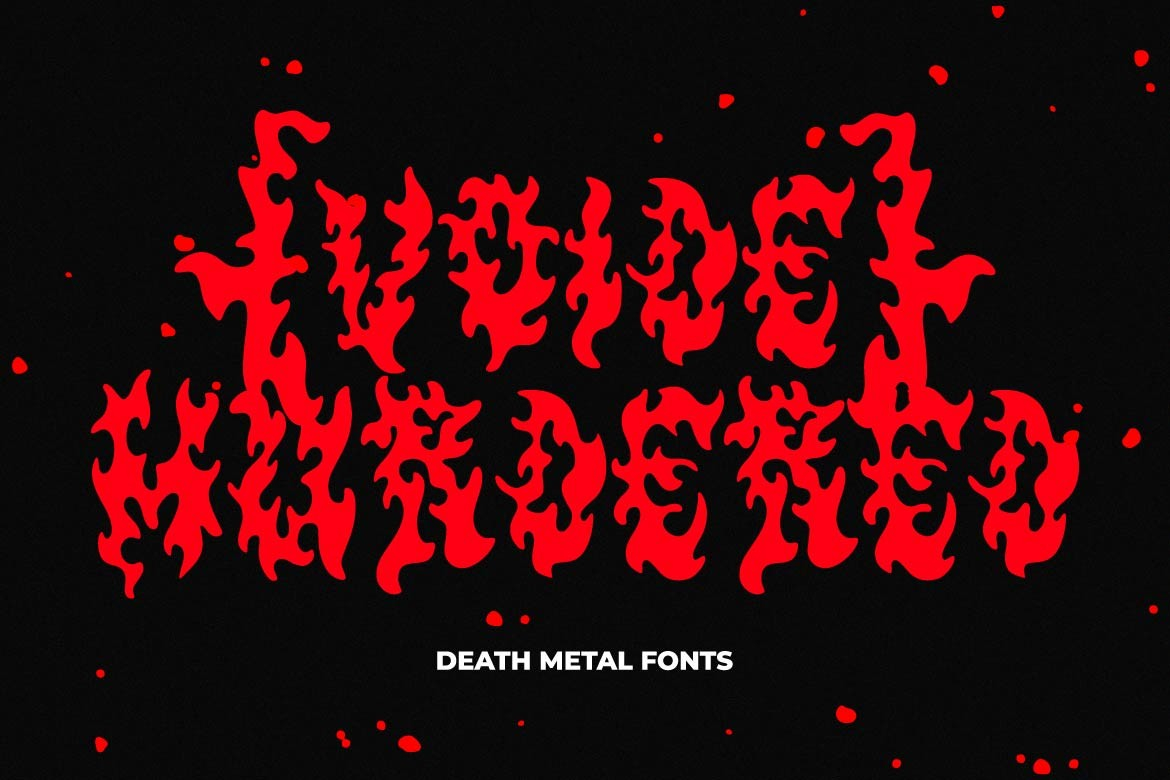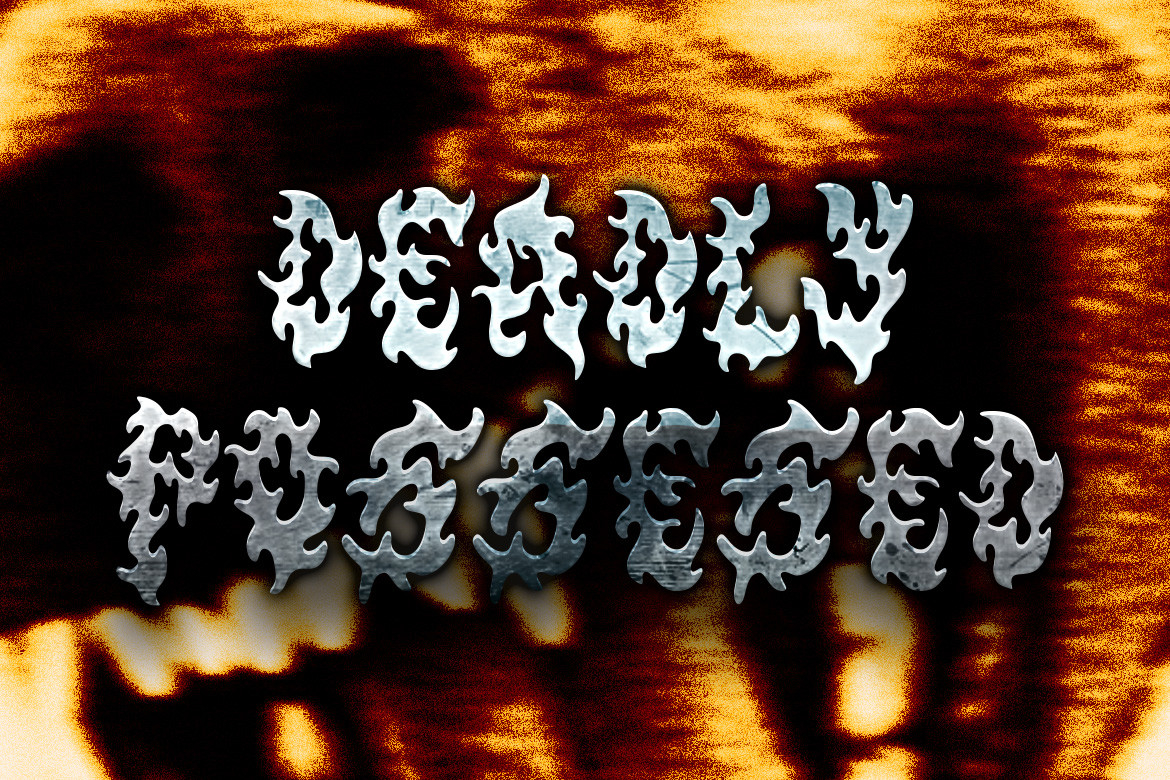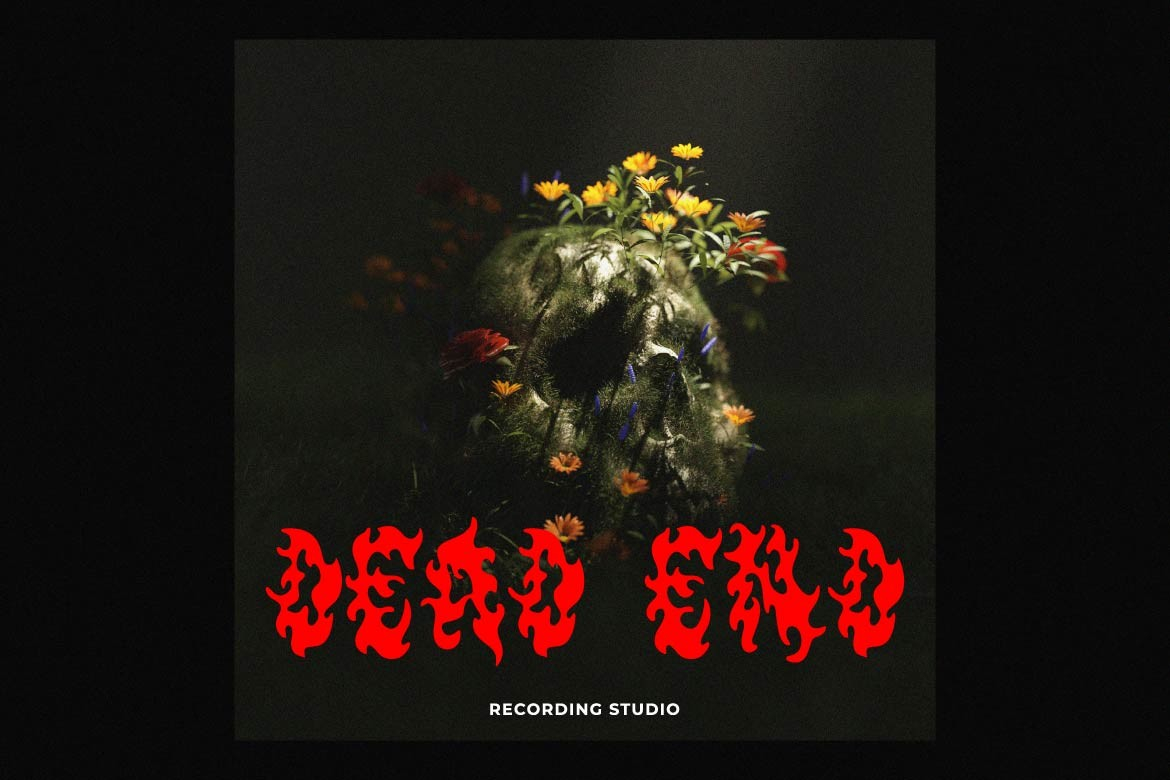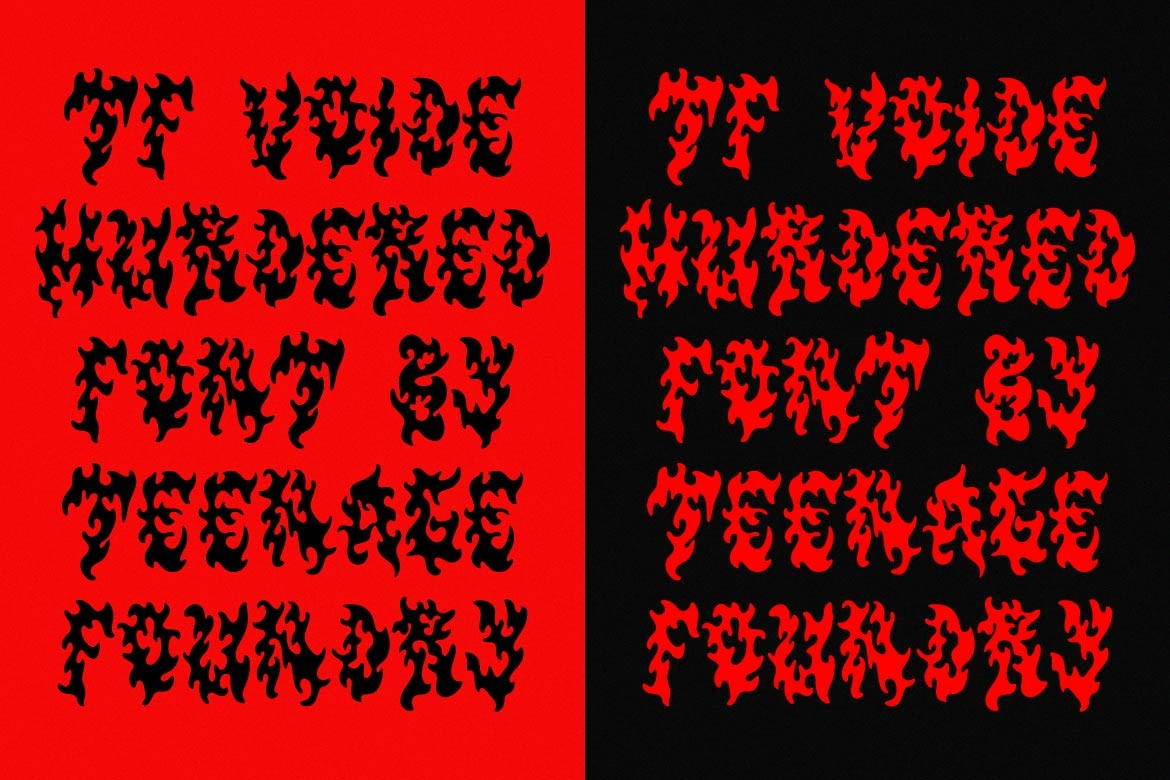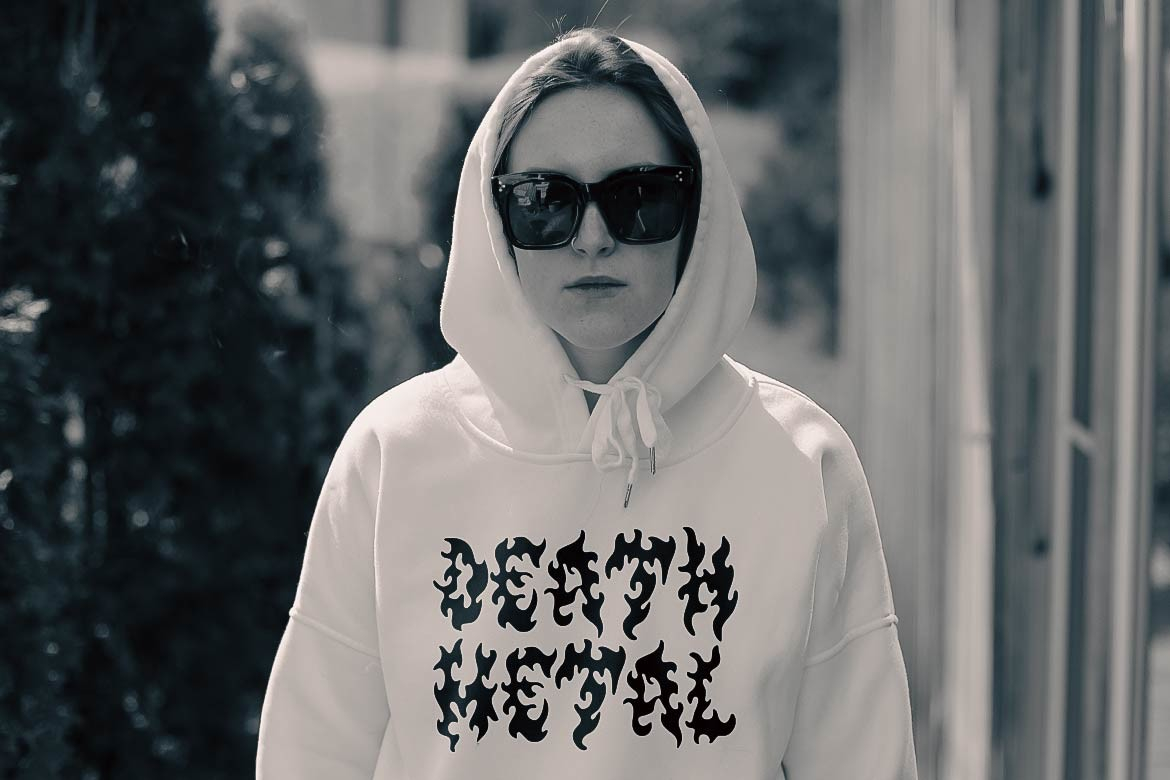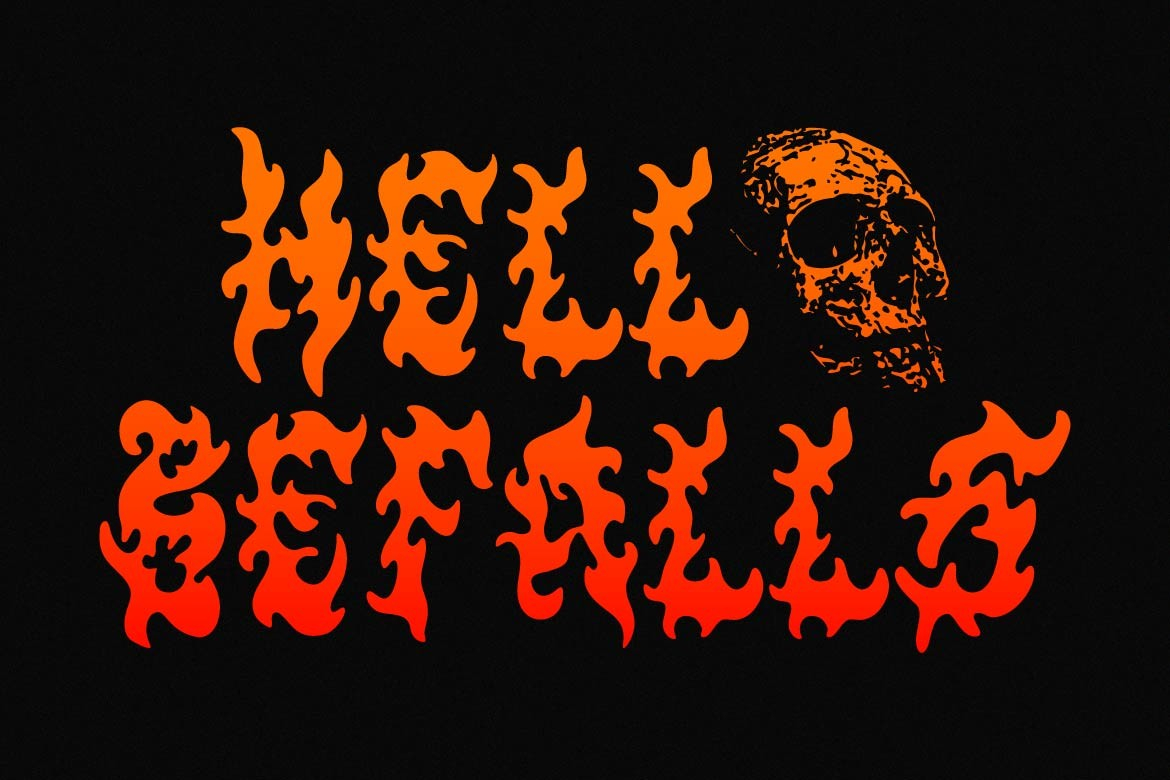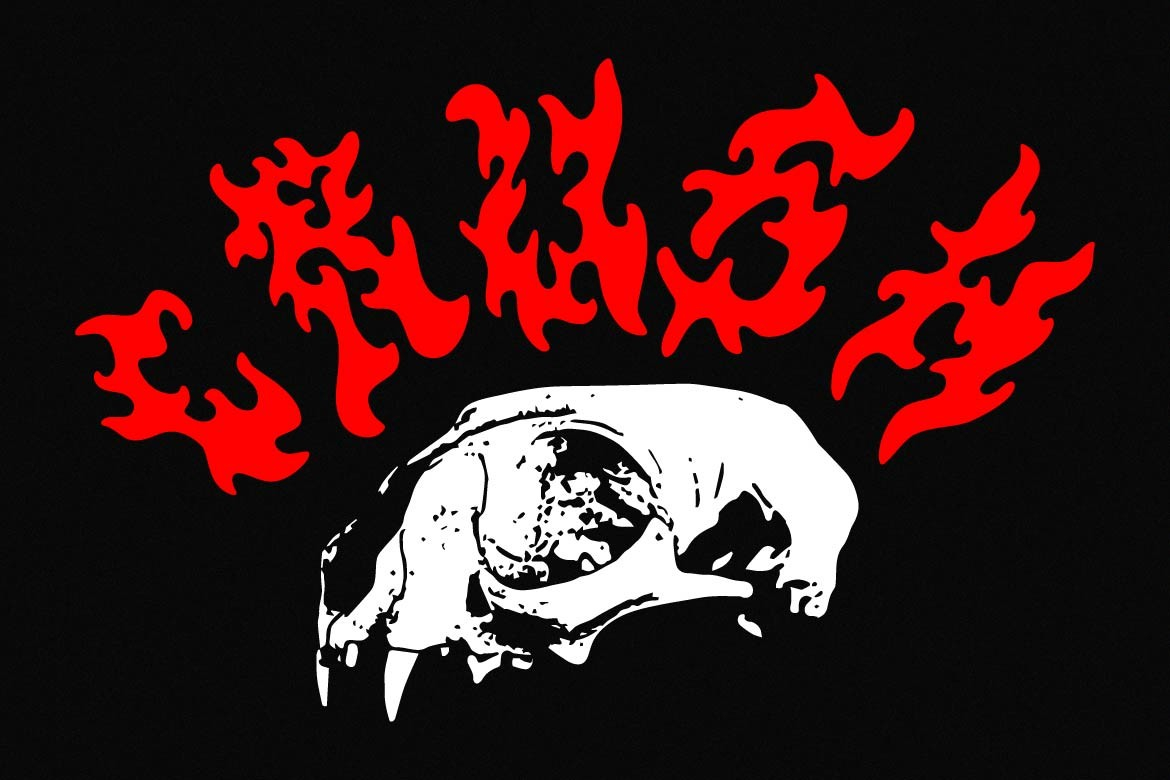
Tf Voide Murdered Font
About Tf Voide Murdered Font
TF Voide Murdered a Death Metal Font. It is the perfect tool to amplify the raw energy and intensity of your designs. Crafted with meticulous attention to detail, this font embodies the essence of heaviness, chaos, and rebellion.